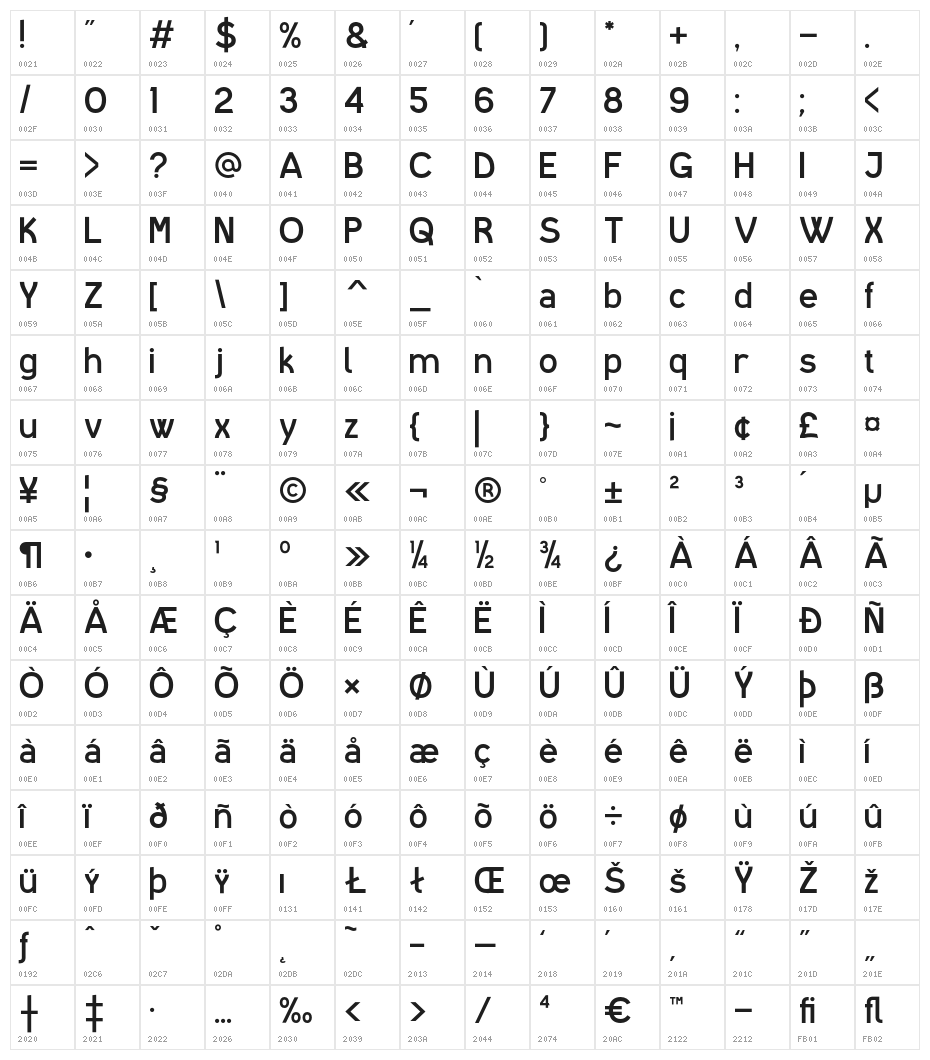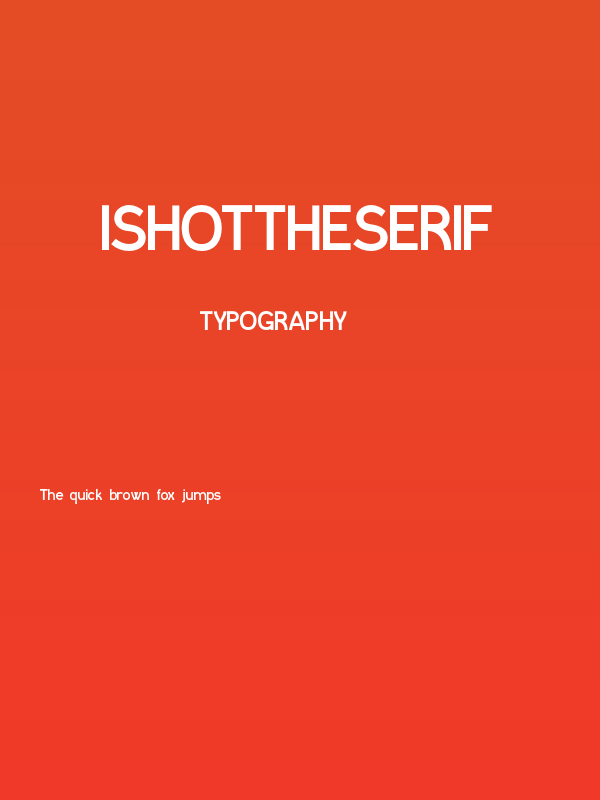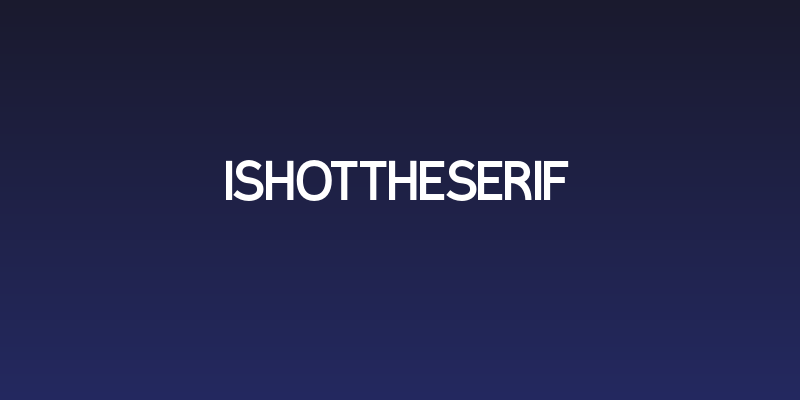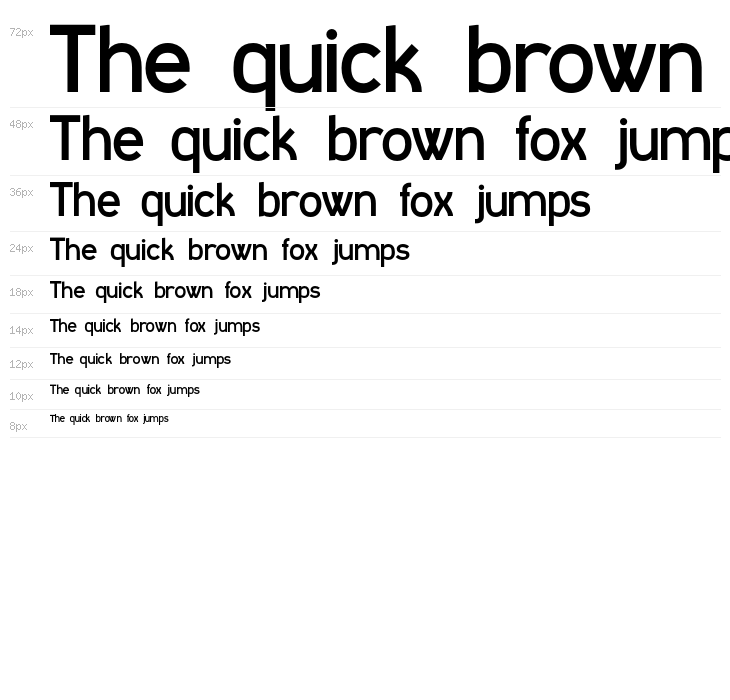
IshottheSerif Font
IshottheSerif Description
This font features a clean and modern sans-serif design with uniform stroke widths, giving it a sleek and contemporary appearance. The characters are well-proportioned, with a consistent height and width that enhances readability. The uppercase letters are bold and assertive, while the lowercase letters maintain a friendly and approachable look. The numerals are clear and distinct, making them suitable for various applications. Special characters are included, adding versatility to the font's use. Overall, this font's simplicity and clarity make it ideal for both digital and print media.
Proposed ProjectsIdeal for branding, web design, advertising, and editorial projects.